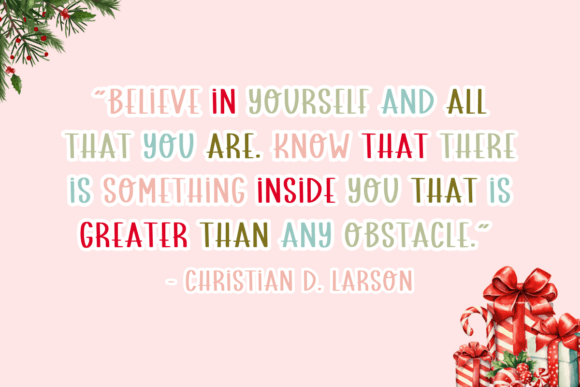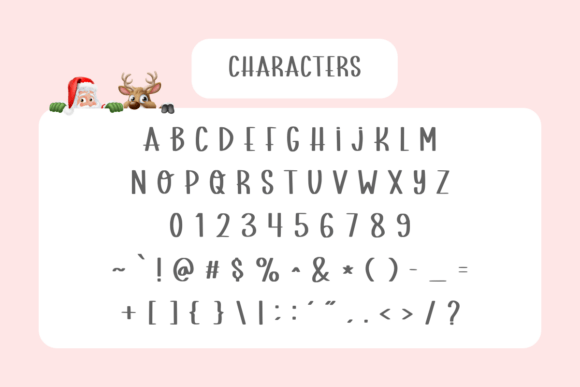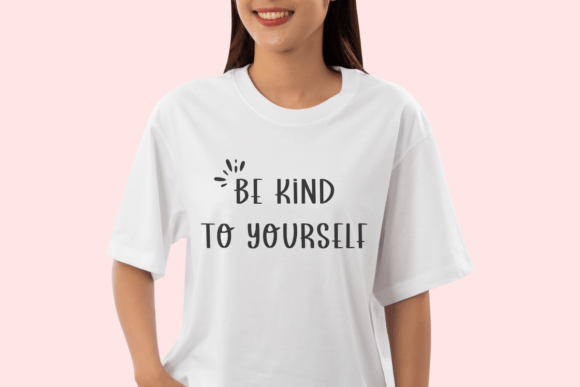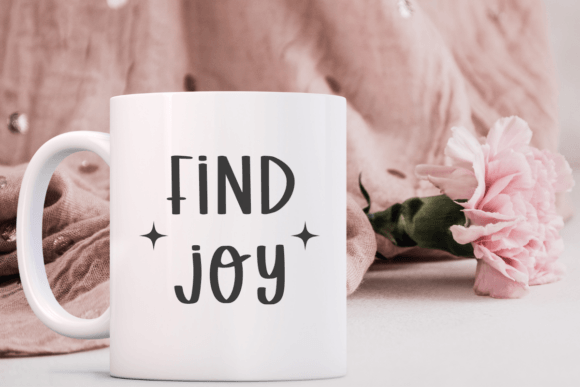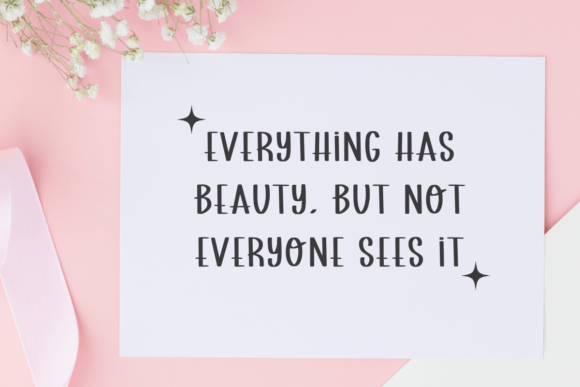
The Festive Conifer Font: A Fun and Versatile Companion for Your Creative Projects
As a designer, I’m always on the lookout for fonts that can add a personal touch to my projects. Recently, I was working on a holiday-themed planner, and I found myself struggling to find the perfect font. That’s when I stumbled upon the **Festive Conifer** font, a fun and cute handwritten sans-serif font that instantly captured my attention.
With its playful and cheerful vibe, Festive Conifer is perfect for a wide range of creative projects, from notes and planners to greeting cards and scrapbooks. In this article, I’ll share my experience with this font, its features, and how to make the most of it in your designs.
An Honest Review of Festive Conifer
- ✨ Playful and cheerful vibe: Festive Conifer has a unique and fun personality that adds a personal touch to any project.
- ✅ Highly versatile: This font is suitable for a wide range of projects, from planners and journals to greeting cards and scrapbooks.
- 🎉 Easy to read: Despite its playful nature, Festive Conifer is surprisingly easy to read, making it perfect for body text.
While Festive Conifer is an excellent font, it’s not without its quirks. For instance:
- 🤔 Limited formal use: Due to its playful nature, Festive Conifer may not be the best choice for formal projects or professional documents.
- ⚠️ Some letters may appear similar: A few letters, such as “I” and “l”, may appear similar, which can make reading more challenging in certain contexts.
- Experiment with OpenType features, such as Stylistic Alternates, to add more personality to your text.
The Story Behind Festive Conifer
Festive Conifer was designed with the holiday season in mind. The font’s creator wanted to create a fun and playful font that would capture the spirit of the holidays. With its cheerful and whimsical vibe, Festive Conifer is perfect for any project that needs a touch of festive flair.
| Author | CraftedType Studio |
Q: What type of projects is Festive Conifer best suited for?
A: Festive Conifer is perfect for creative projects like notes, planners, journals, greeting cards, invitations, scrapbooks, and calendars.
Q: Is Festive Conifer easy to read?
A: Yes, despite its playful nature, Festive Conifer is surprisingly easy to read, making it perfect for body text.